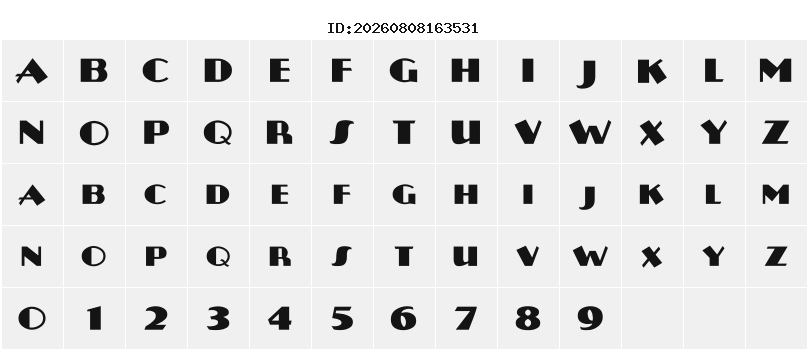
• Font Name: Plug-NickelBlack
• Full Font Name: Plug-NickelBlack
• PostScript Name: Plug-NickelBlack
About Plug-NickelBlack.ttf
Plug-NickelBlack.ttf is a modern, elegant sans-serif font designed for ultimate readability and visual harmony. Perfect for branding, headlines, web design, and print materials.